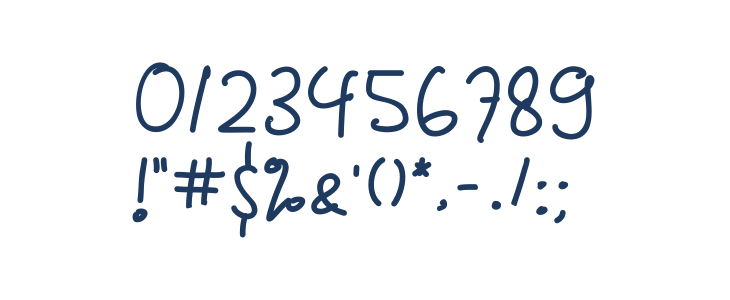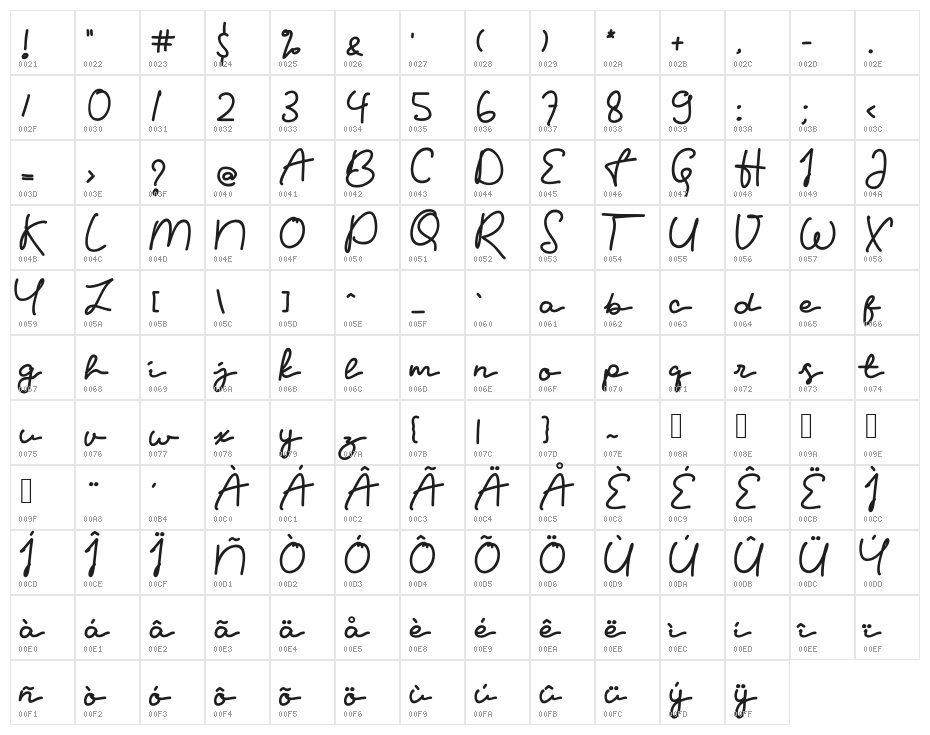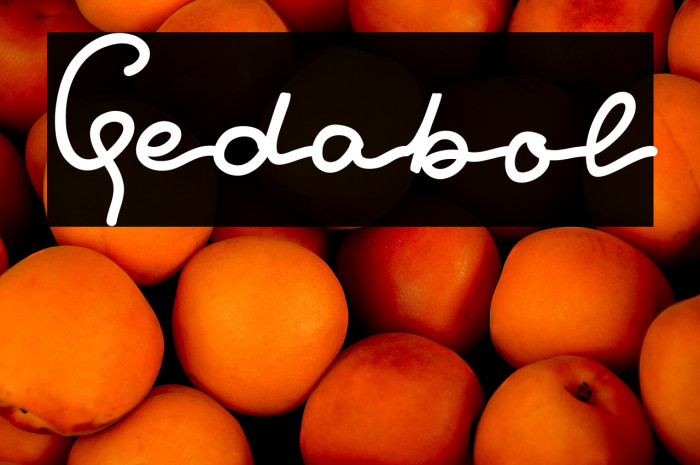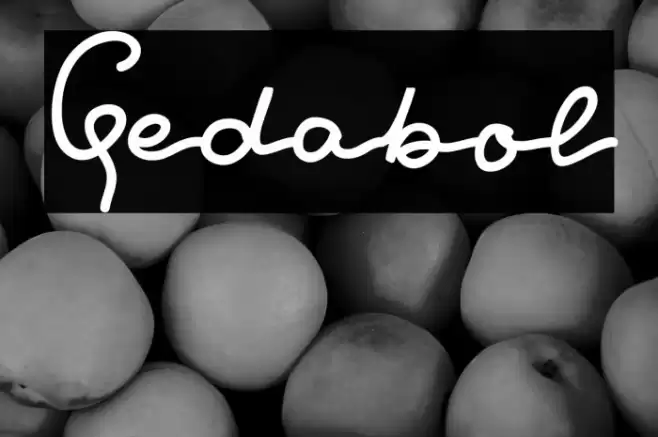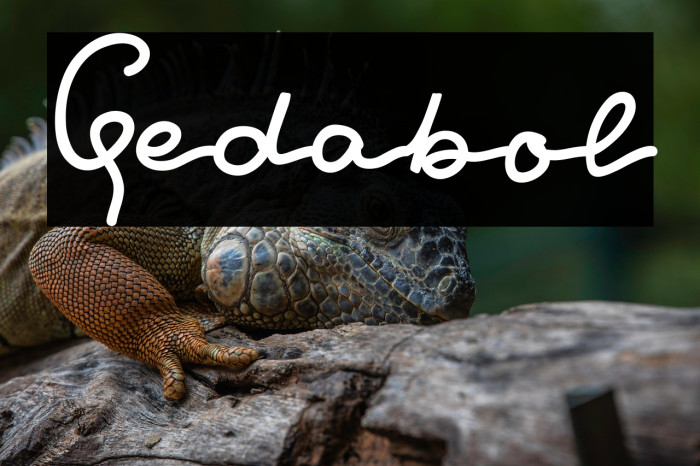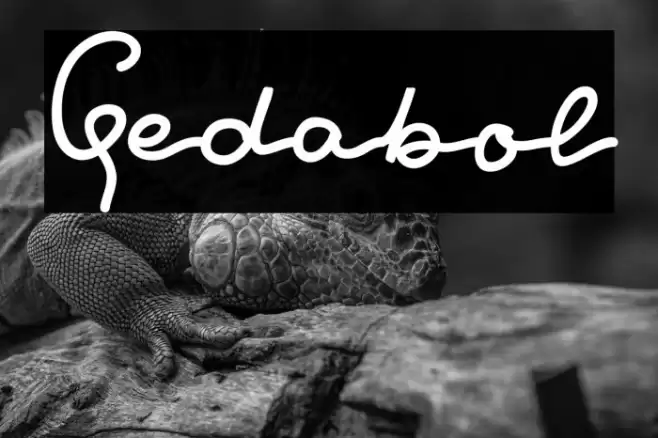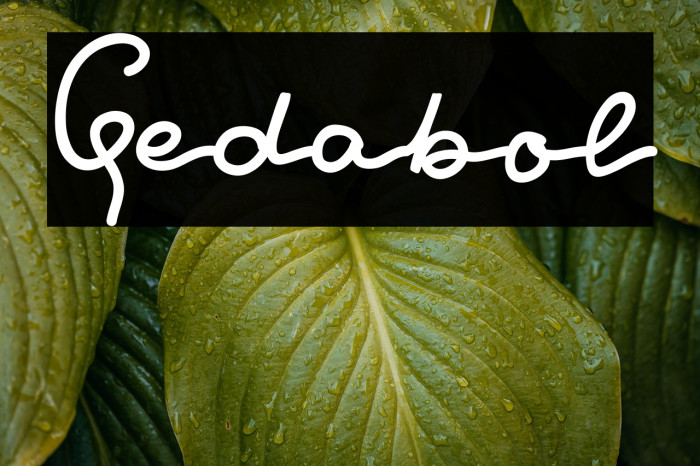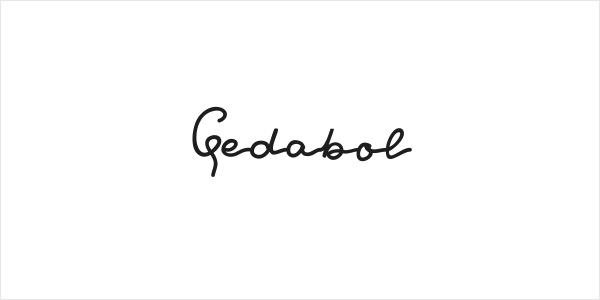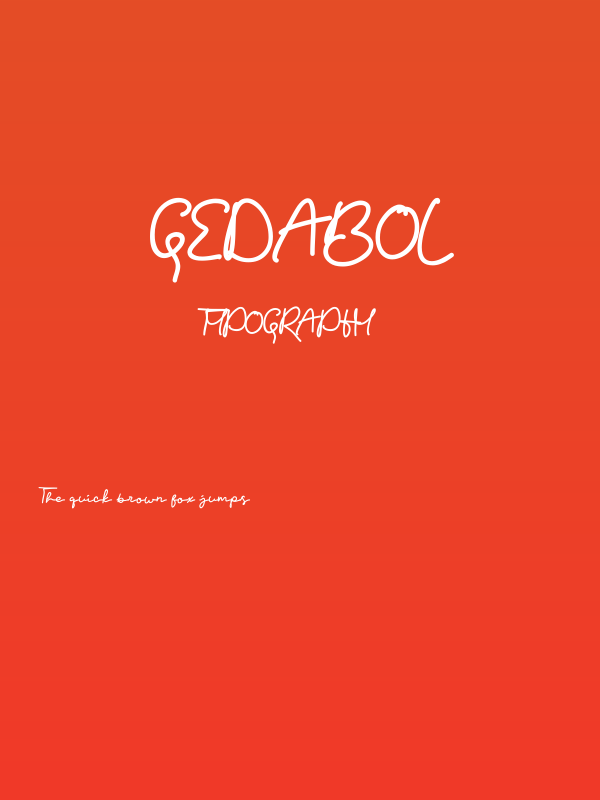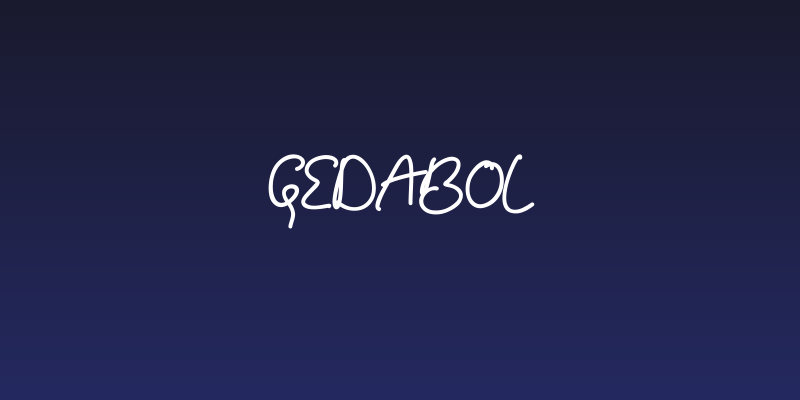
This font features a playful and casual handwritten style, characterized by its flowing and connected letterforms. The uppercase and lowercase letters maintain a consistent stroke width, giving it a uniform appearance. The characters are slightly slanted, adding to the informal and relaxed feel. The numerals and special characters follow the same style, ensuring cohesion across all elements. The font's overall look is approachable and friendly, making it suitable for projects that require a personal touch.
| Use Case | Logos, Invitations, Social Media |
| Proposed Projects | Ideal for greeting cards, personal invitations, casual branding, and social media graphics. |